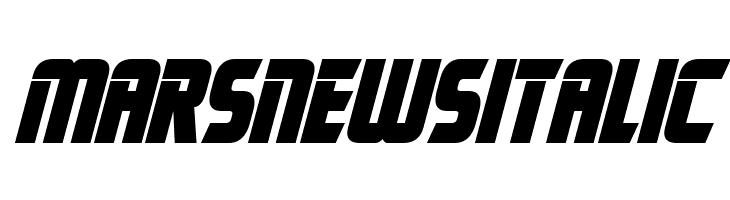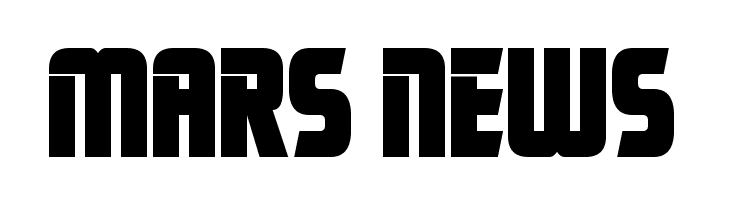
A playful, handwritten font with a whimsical and friendly style.
A playful, handwritten font with a casual and dynamic style.
A bold, playful font with rounded, hand-drawn characters.
A bold, geometric font with strong visual impact.
A bold, geometric font with a pixelated, retro digital style.
A bold, geometric, and abstract decorative font with unique character designs.
A bold, angular font with a modern, geometric style.
A playful, jagged font with a spooky, Halloween-inspired design.
A playful, informal handwritten font with irregular, organic letterforms.
A playful, handwritten-style font with a casual and friendly appearance.
A dynamic, expressive handwritten font with fluid, cursive letterforms.
Abstract shapes resembling Pac-Man, not a font.
A gothic-inspired serif font with sharp, angular serifs and pointed terminals.
A dramatic, medieval-inspired serif font with sharp serifs and unique letterforms.
A bold, gothic-inspired font with sharp serifs and unique letterforms.
An organic, vine-like decorative font with a whimsical, fantasy-inspired style.
An elegant script font with flowing, decorative strokes.
A modern, elegant script font with flowing, cursive characters.
A dynamic, brush-style font with expressive, fluid strokes.
A bold, vintage-style font with a three-dimensional effect and strong serifs.
A bold, playful font with a three-dimensional shadow effect.
An ornate, decorative font with intricate floral patterns in each letter.
An ornate, decorative font with intricate floral designs in each character.
A decorative serif font with ornate uppercase letters and classic lowercase design.
A decorative serif font with ornate uppercase letters and classic serif lowercase characters.
An elegant script font with fluid, cursive strokes and high contrast, ideal for formal and decorative uses.
( Fonts by Pablo Impallari, Rodrigo Fuenzalida (Modified by Dan O. Williams) - Personal-use only. For commercial use please contact owner. )
A modern, clean sans-serif font with balanced spacing and consistent stroke width.
A bold, impactful typeface with uniform strokes and strong presence.
A bold, italicized font with a strong, dynamic presence.